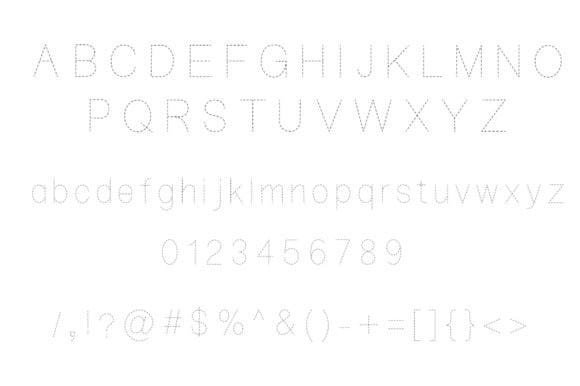
Little Kidos Font
Little Kidos Font is a light and thin display font. Its simple yet unique style makes this font incredibly fit for a wide variety of designs. Use it to elevate your projects to the highest levels!